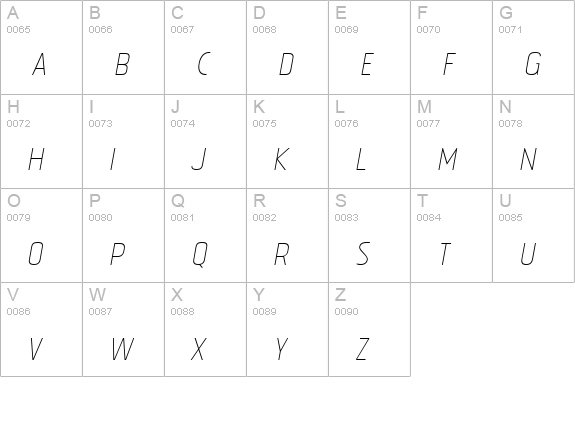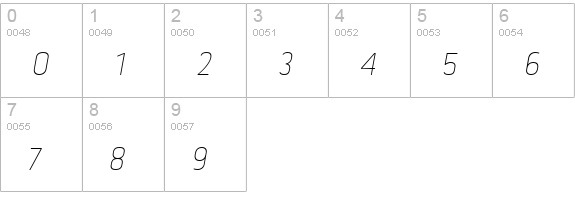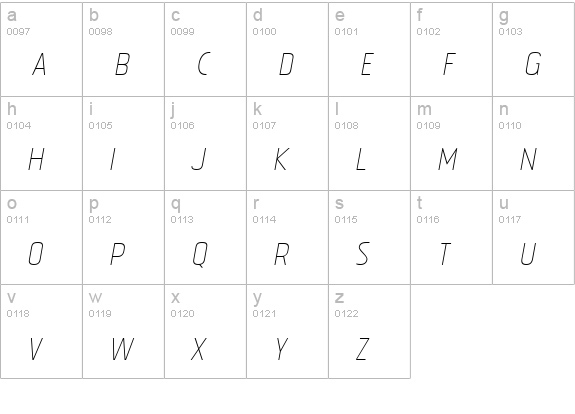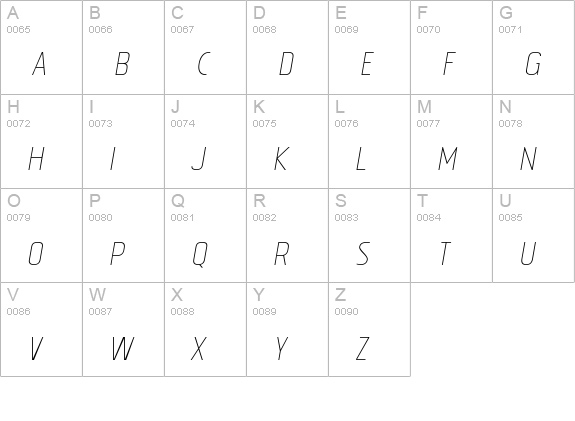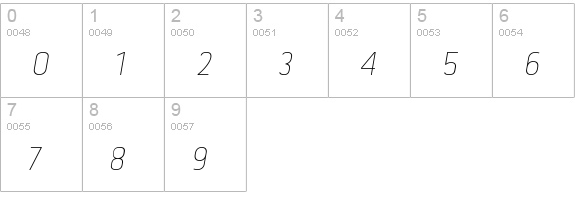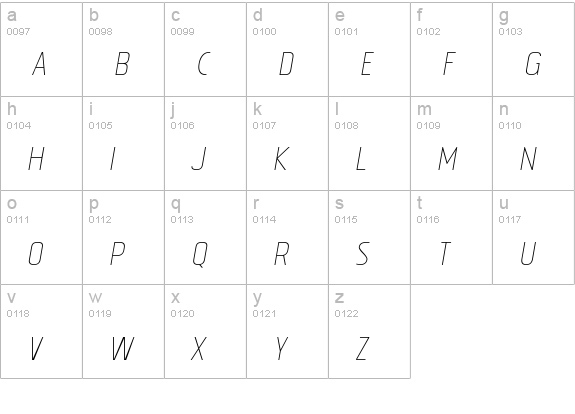
Tolyer Thin no.2 Oblique is a delicate, low-contrast, italic variant in the Tolyer typeface family \xE2\x80\x94 well suited to fashion editorial, minimal branding, and high-contrast display.
Tolyer Thin no.2 Oblique font is a sleek and modern typeface that exudes elegance and sophistication. Its slanted design adds a touch of dynamism and movement to any text, making it perfect for projects that require a contemporary and stylish look. The thin strokes and sharp angles of this font create a sense of precision and refinement, making it ideal for branding, editorial design, and more. Best of all, Tolyer Thin no.2 Oblique font is available for free download at FontsMarket.com. This means you can easily add this stunning typeface to your collection without any cost, allowing you to elevate your designs without breaking the bank. Don't miss out on the opportunity to enhance your projects with the exquisite Tolyer Thin no.2 Oblique font - download it for free today!